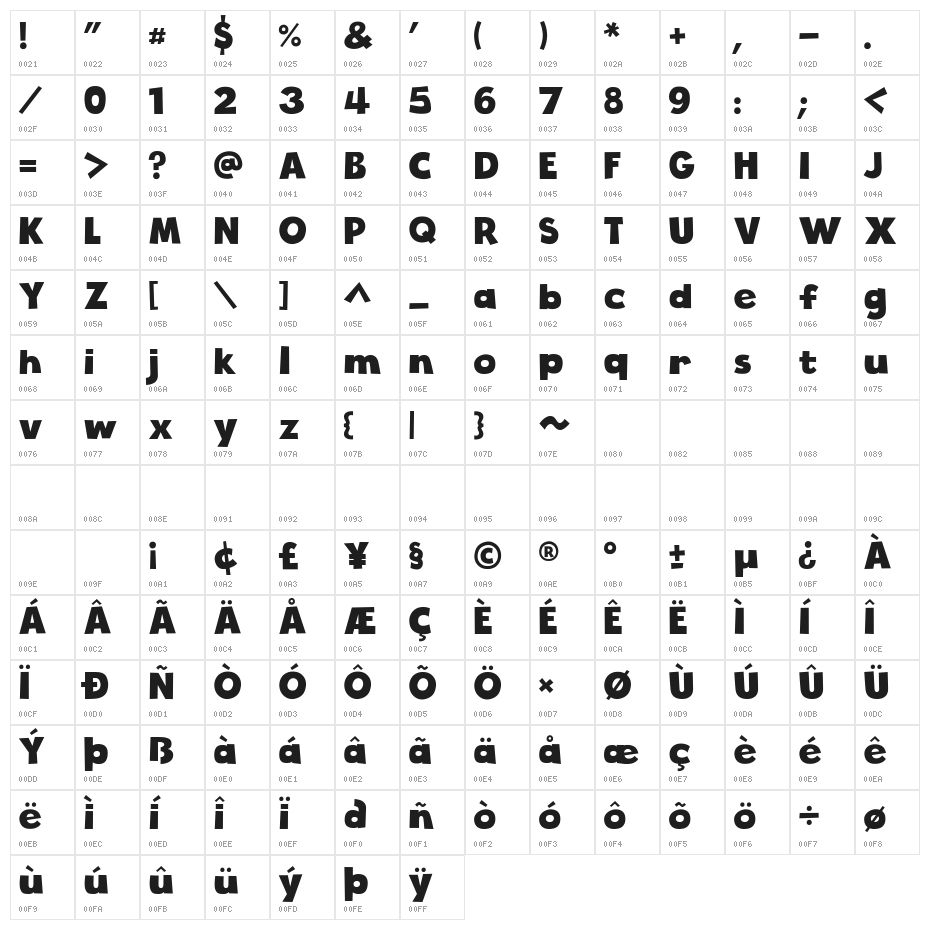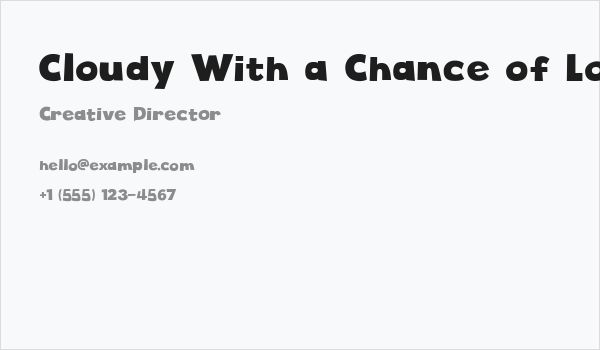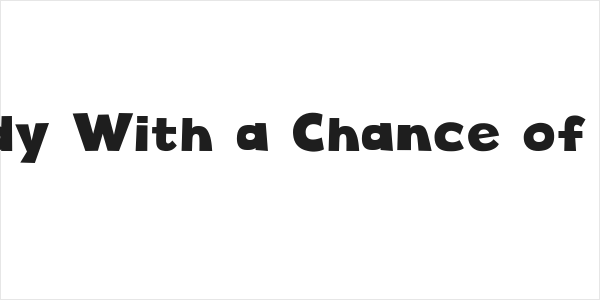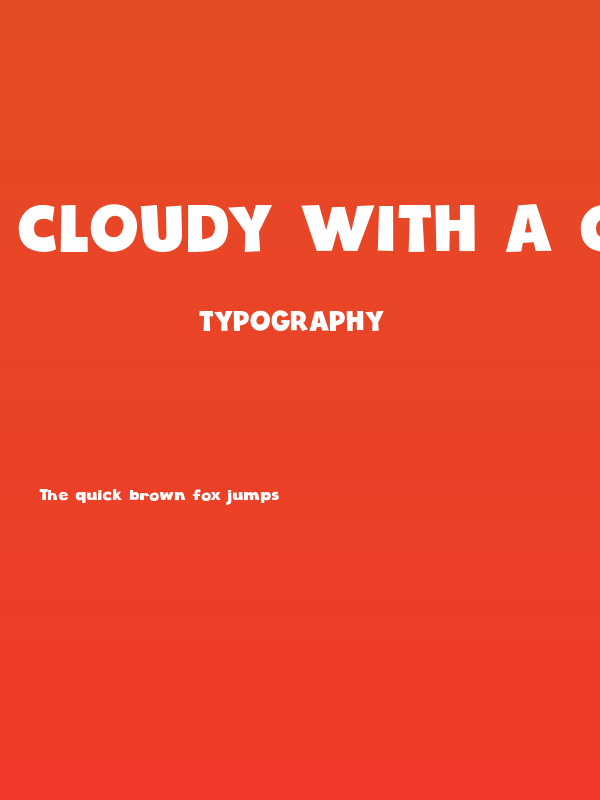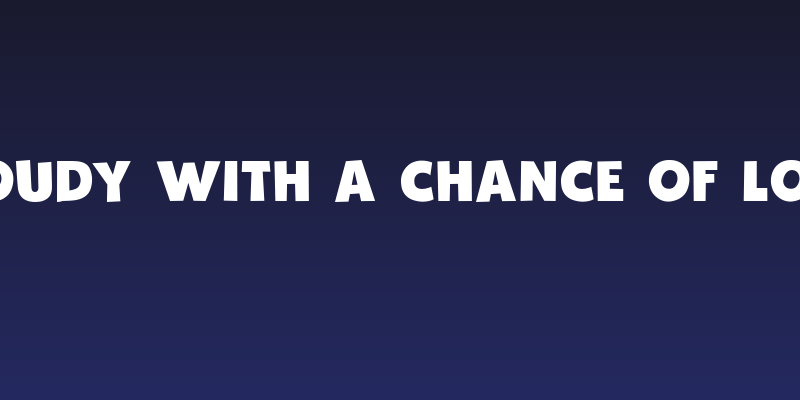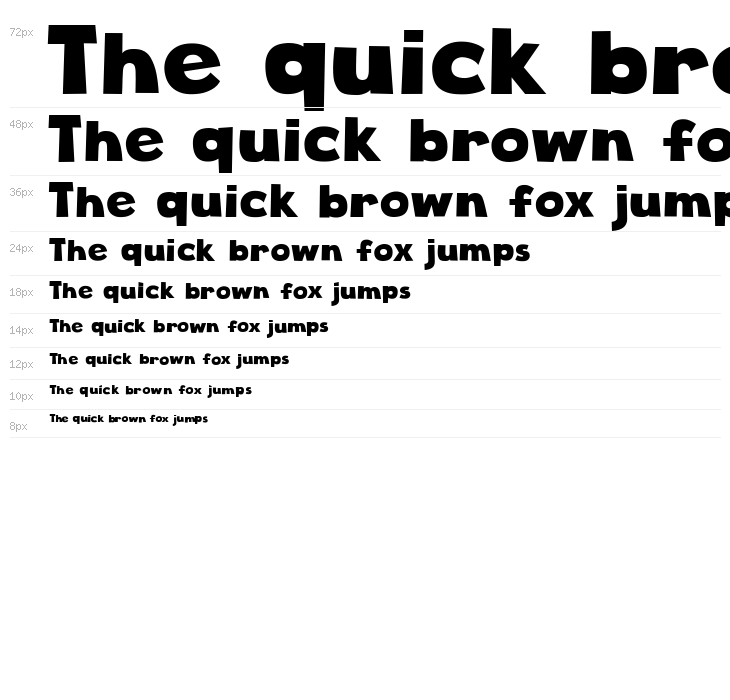
Cloudy With a Chance of Love Font
Cloudy With a Chance of Love Description
This bold and impactful font features thick, uniform strokes that create a strong visual presence. The uppercase letters are robust and commanding, while the lowercase letters maintain a consistent weight, offering a harmonious balance. The numerals are equally bold, ensuring readability and emphasis. Special characters are designed with the same boldness, making them stand out effectively. The overall style is modern and assertive, suitable for making a statement.
| Proposed Projects | Ideal for headlines, posters, branding materials, and any project requiring a bold statement. |